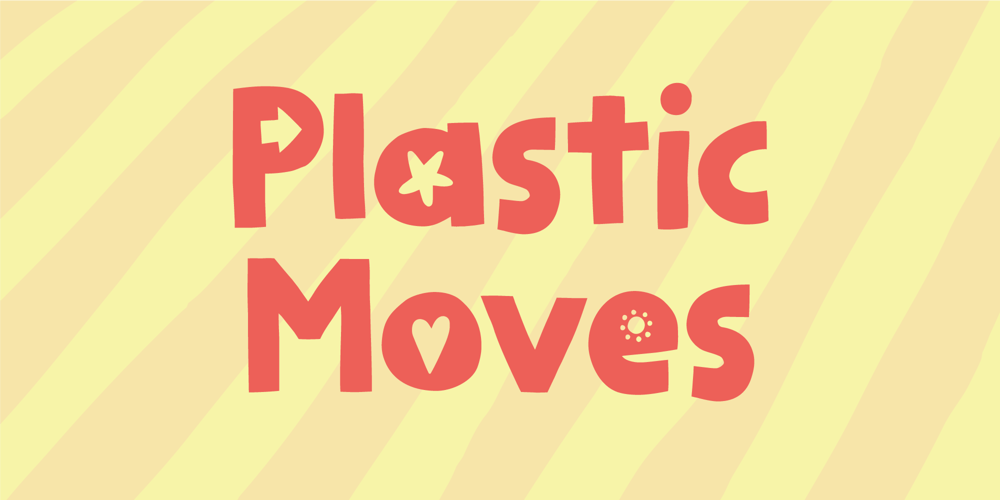
Plastic Moves
Plastic Moves font
Plastic Moves Font Family was designed by Jakob Fischer and published by PizzaDude.dk. Plastic Moves contains 5 styles and family package options. Originally this font was made to be with cut-out letters, but in the end I decided to draw all the letters by hand + making doodles that fits nicely into the counter of the letters, strengthening the organic handmade look.The result is this lovely cartoonish and organic looking font 🙂